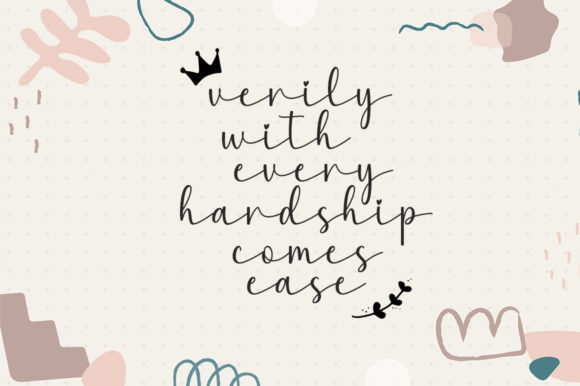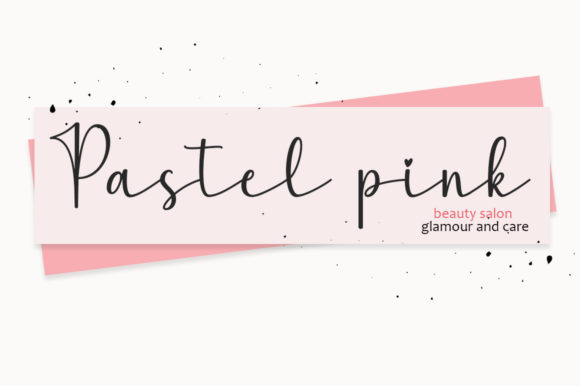
Dear Darling Font
db-ku.com - Script & Handwritten -- Dear Darling is a thin lettered and delicate script font. It is PUA encoded which means you can access all of the amazing glyphs and ligatures with ease!